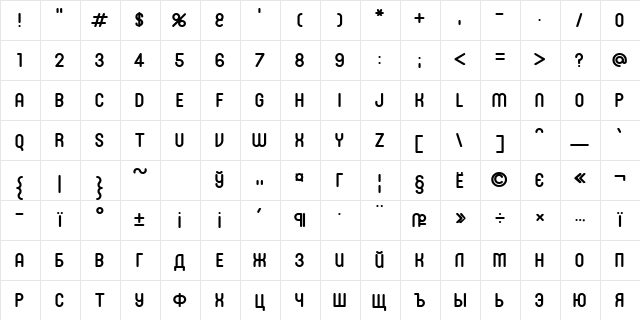
RonInset2 Normal Font Preview
RonInset2 Normal
Design Context for RonInset2 Typeface
RonInset2 is a composed and adaptable typeface that performs quietly and consistently across a wide range of design contexts.